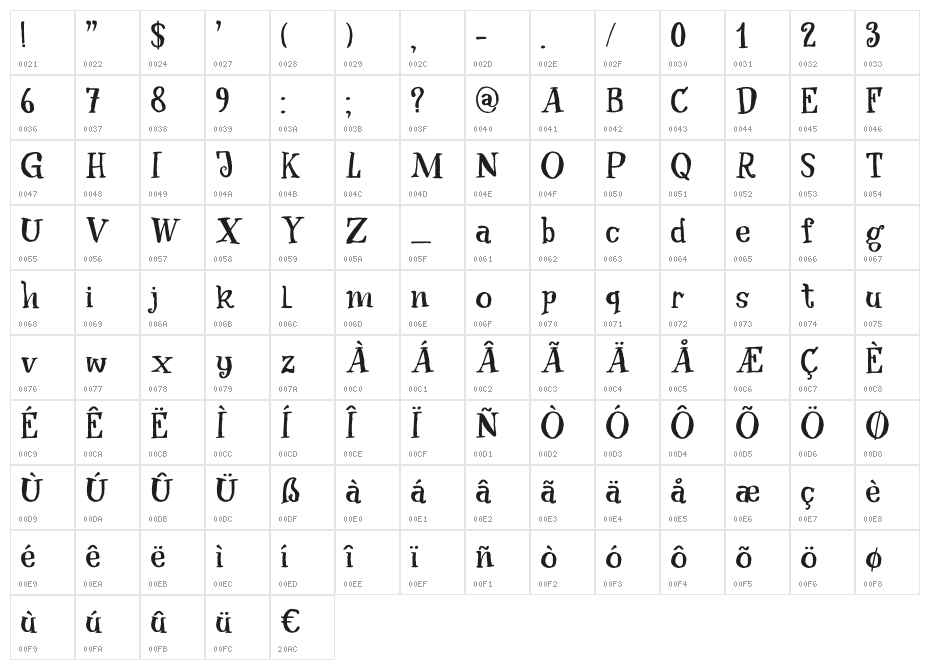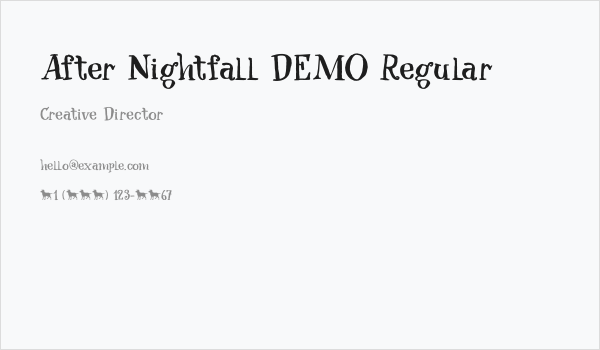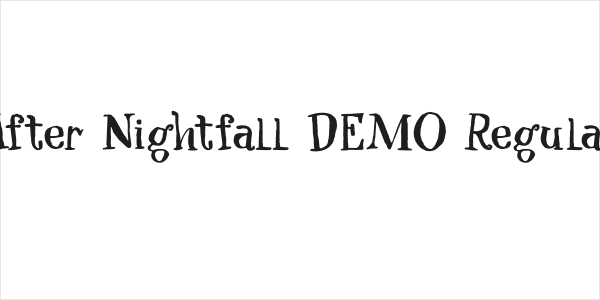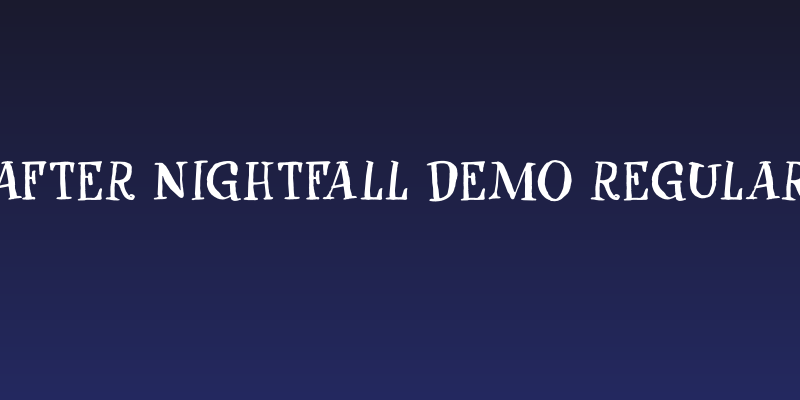
After Nightfall DEMO Regular Font
After Nightfall DEMO Regular Description
This font features a whimsical and playful design, characterized by its uneven and hand-drawn appearance. The uppercase letters have a slightly irregular shape, adding a touch of charm and personality. The lowercase letters continue this playful style, with some letters featuring unique flourishes and curves. The numbers are bold and maintain the quirky style of the alphabet. Special characters include a distinctive dog silhouette, adding a thematic element to the font. This font is perfect for creative projects that require a fun and informal touch.
| Use Case | Logos, Posters, Creative Projects |
| Proposed Projects | Ideal for children's books, playful branding, greeting cards, and creative posters. |